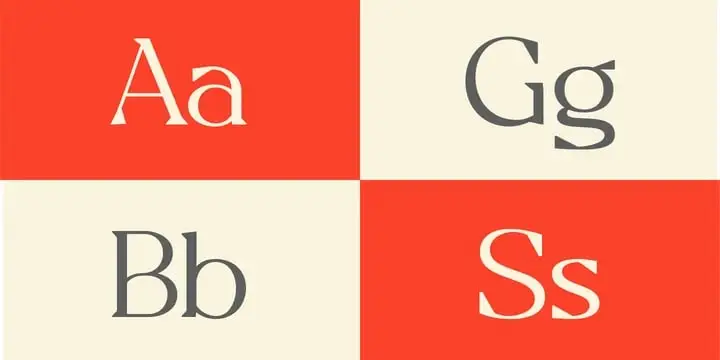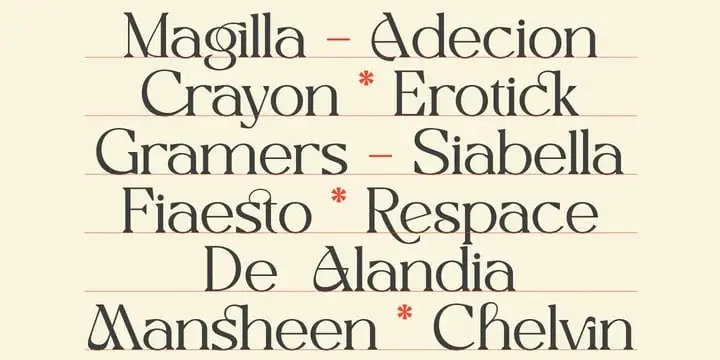
Allogist Font
The Allogist Font is a versatile typeface designed to elevate your creative projects. With its unique blend of modern and classic elements, this font is perfect for a variety of applications including branding, logos, web design, and print materials.
• Multiple weights for flexibility
• Uppercase and lowercase characters
• Ideal for creating eye-catching logos and branding materials
• Use in web design for a modern aesthetic
• Perfect for print projects such as flyers and business cards